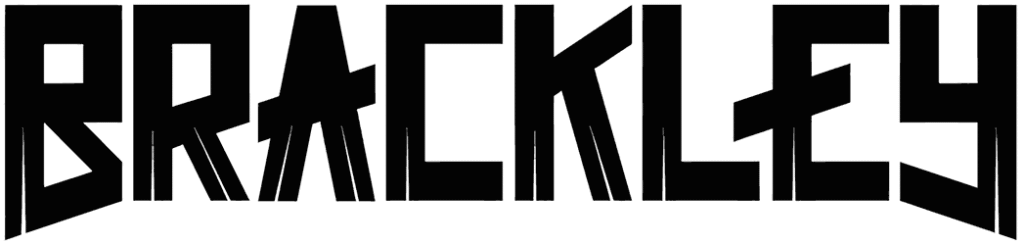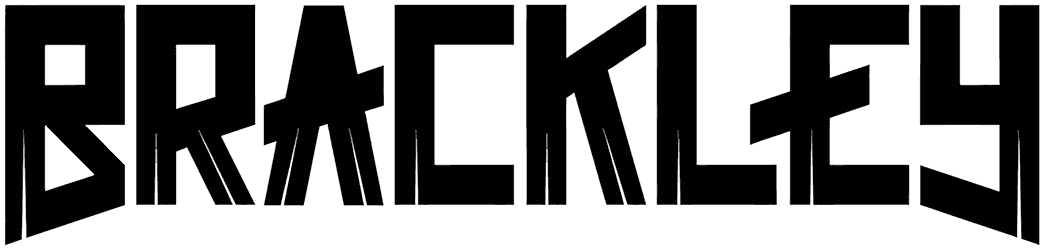
Brackley Font
Similar to all the metal fonts, Brackley can breathe new life into tired typesetting. Its lack of lowercase letters and numbers doesn’t limit its applicability; it works well in everything from logos and blog headers to branding, posters, and invitations.